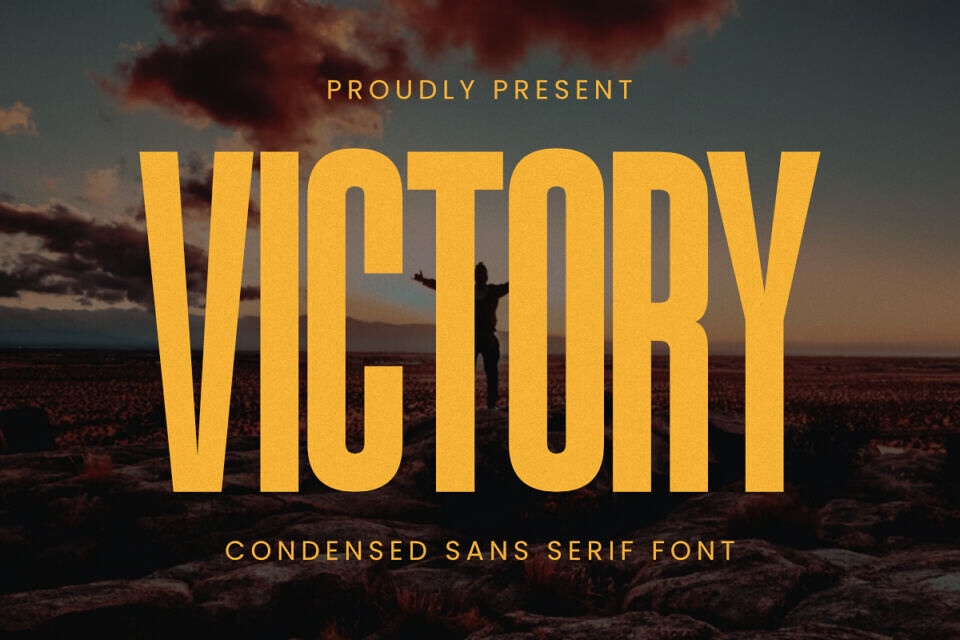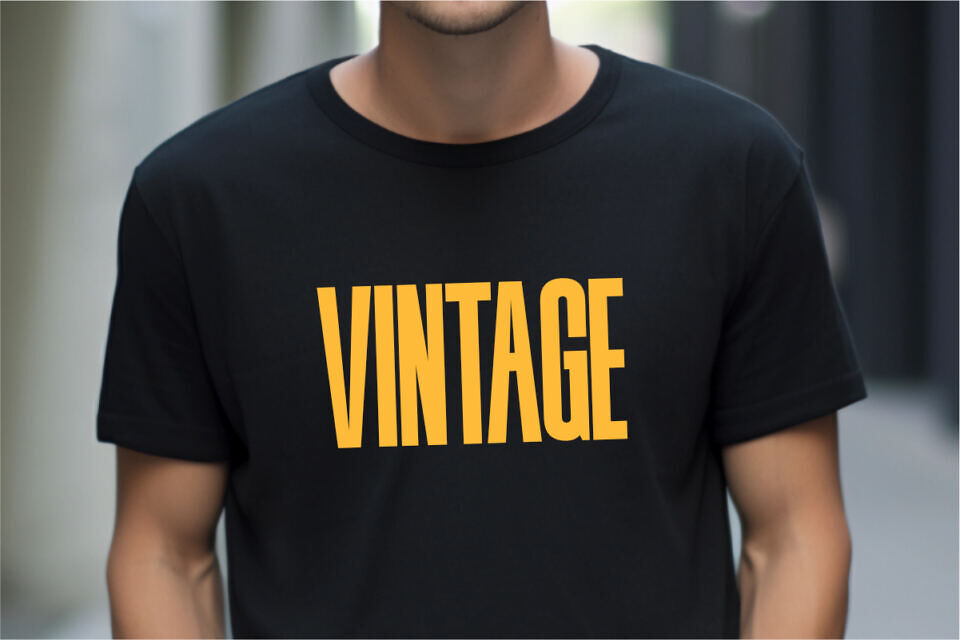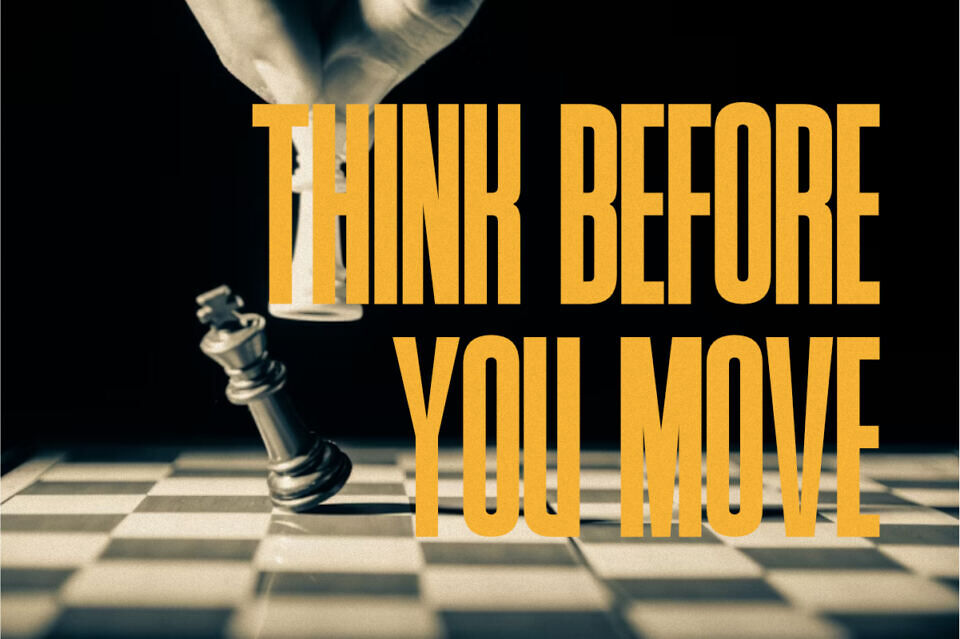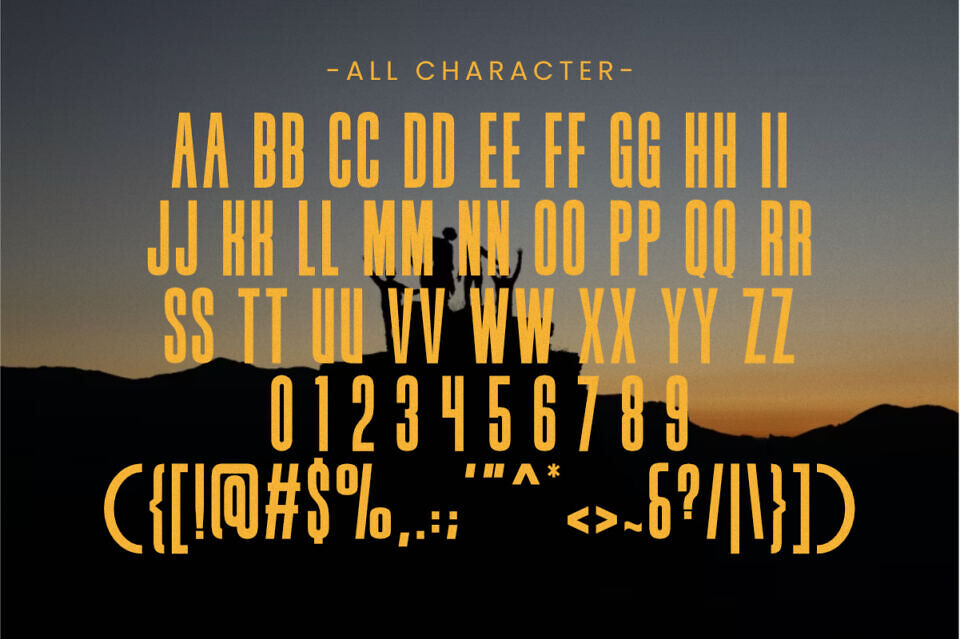
Victory Font
Victory is a bold condensed sans serif font that radiates strength, confidence, and determination. With its tall, sleek letterforms and modern styling, this typeface is perfect for creating impactful headlines, striking posters, bold branding, athletic team logos, sports event graphics, and motivational quotes.
Victory combines minimalism with maximum presence, making it an essential choice for designers who want their message to stand tall and be remembered.